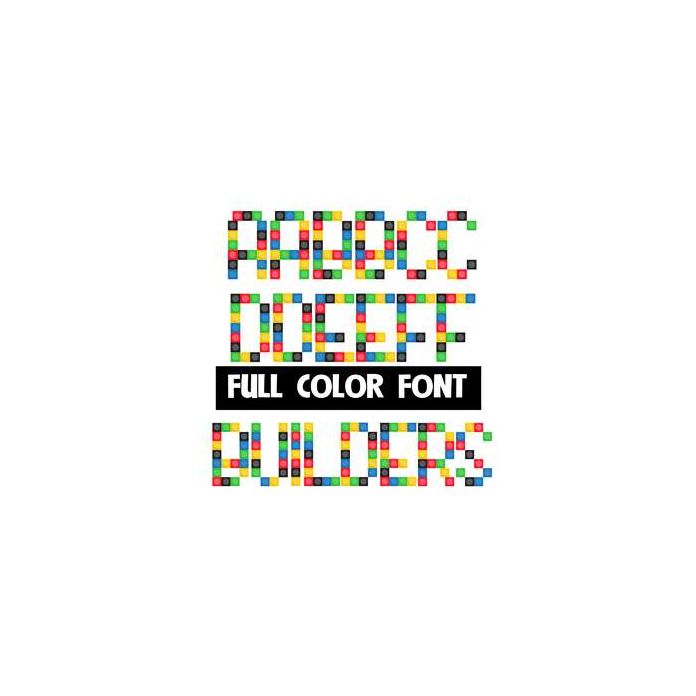
This full-color font looks like it was made from small, colorful building blocks. This font works best for titles, displays, posters and more. Please note color fonts will show as black in non compatible programs. This font type is compatible with Silhouette Studio.